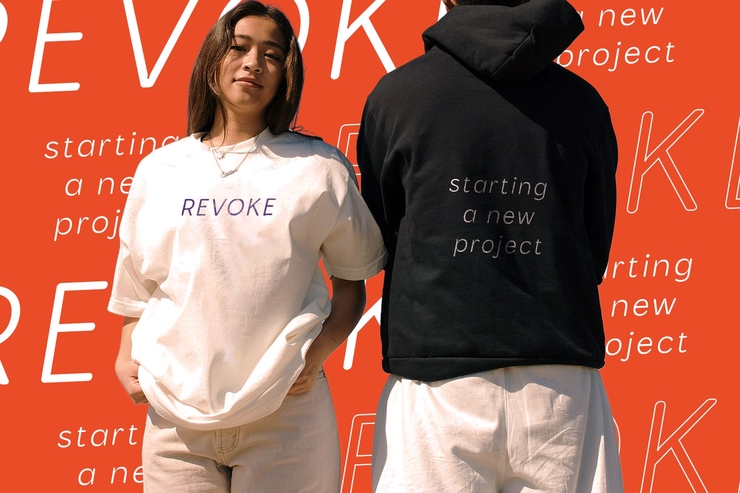
Brendie Rounded Elegant English Font for Branding & Creative Design
Brendie Rounded is an exquisite English font designed with elegant rounded glyphs and smooth sleek strokes. Each letter features well‑balanced proportions and soft curved edges, delivering a gentle, sophisticated and modern visual style. Its rounded design brings warm and stylish temperament, combining minimalist aesthetics with high‑end texture perfectly. Complete with full uppercase and lowercase letters, this font is widely applicable for brand logos, fashion posters, web headlines, e‑commerce banners, product packaging, UI text and decorative typography. It is highly scalable and easy to customize size, color and layout without losing delicate details. Perfect for graphic designers, creative studios and commercial branding projects to enhance visual appeal of various design works.Free for Commercial Use / No Copyright